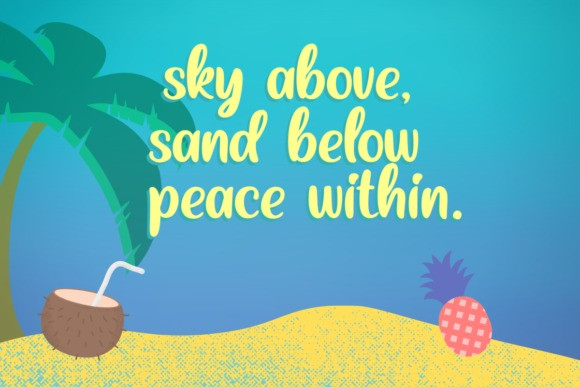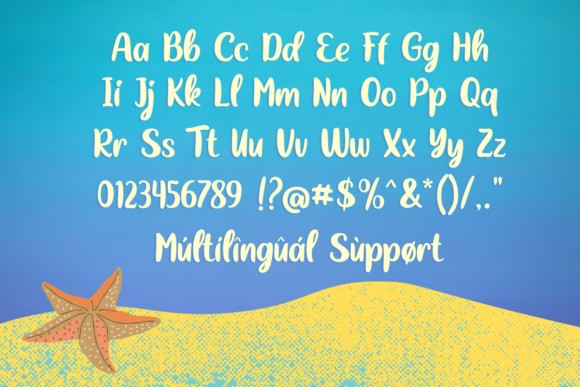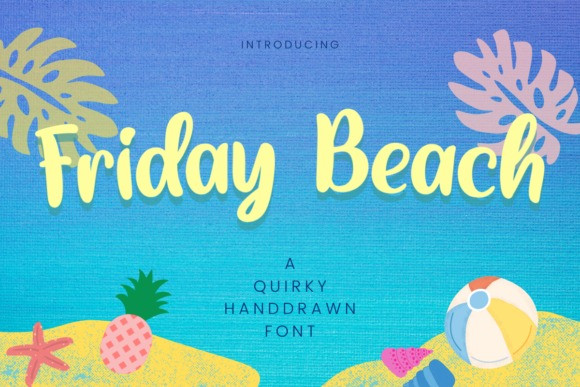
Friday Beach Script Font
Friday beach is a simple and cute handwritten font. It has easily readable characters that make it perfect for almost any crafty idea you have!